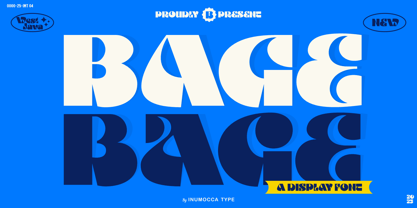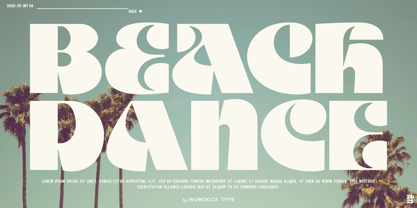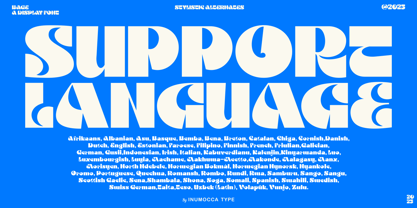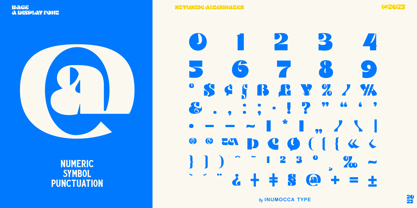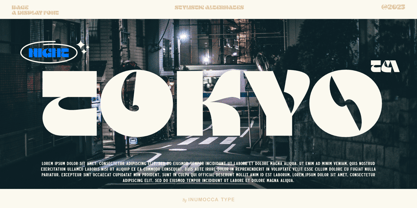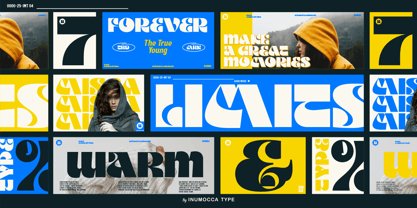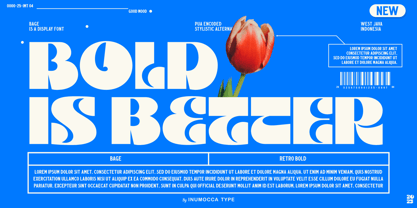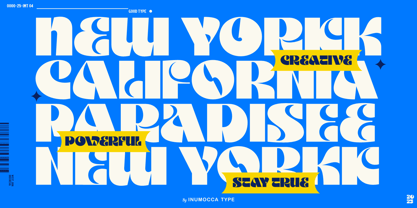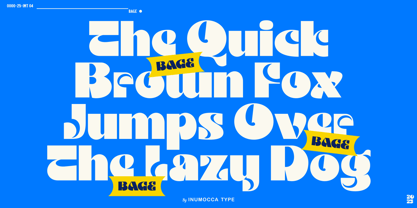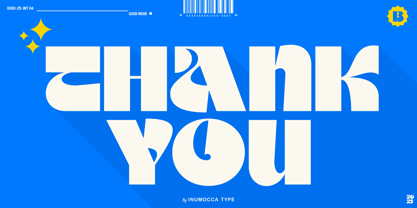
Bage
by Inumocca
The Bage Font Family was designed by Inu Mocca and published by Inumocca. Bage contains 1 styles. More about this family
Bage is A Display Font, Retro Bold a unique vibe
its perpect for short headlines, short text and Logos,Bage creates a unique rhythm in any body of text,
Great for covering your Project where a sense of fun, delight and visual appeal is essential.
like Branding, Logos, packaging Design, Poster,Lettering, and more your project design.
- Unique glyphs
- Multilingual Characters
- UPPERCASE
- Lowercase
- Numeric
- Symbol
- Punctuation Character
- PUA encoded
- Stylistic Alternates (ss01)